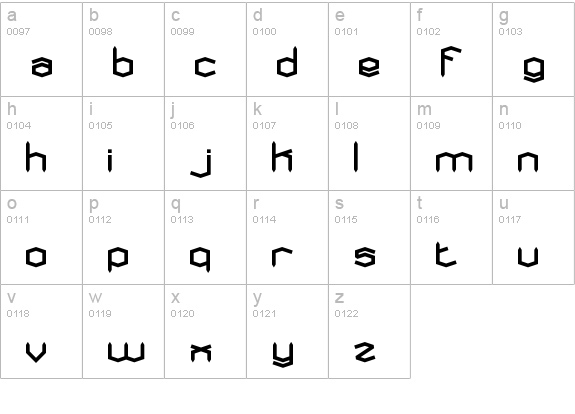
Mysterons BRK Font Details
Mysterons BRK font is a modern and stylish typeface that exudes a sense of mystery and intrigue. With its unique design and sharp edges, this font is perfect for creating eye-catching headlines, logos, and promotional materials. The sleek lines and bold strokes make Mysterons BRK font stand out from the crowd, adding a touch of sophistication to any design project. The best part? Mysterons BRK font is available for free download at FontsMarket.com. That's right, you can add this versatile and striking font to your collection without breaking the bank. Whether you're a professional designer looking for a new font to elevate your work, or an enthusiast looking to experiment with typography, Mysterons BRK font is a must-have addition to your toolkit. Download it today and let your creativity soar with this captivating and dynamic typeface.